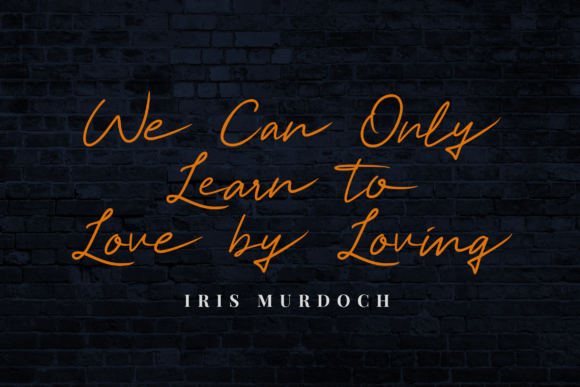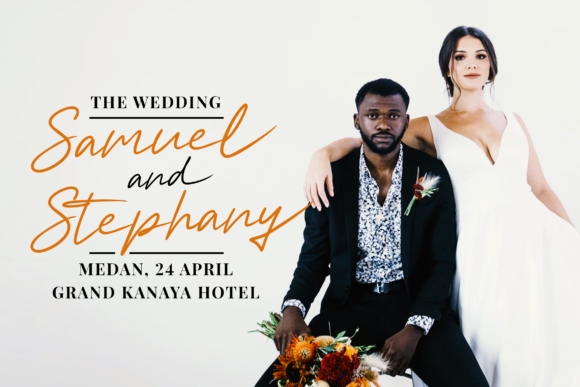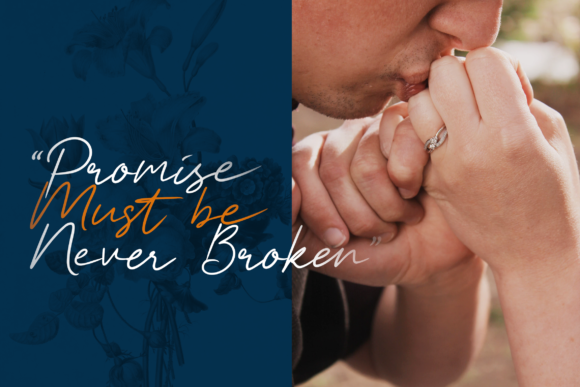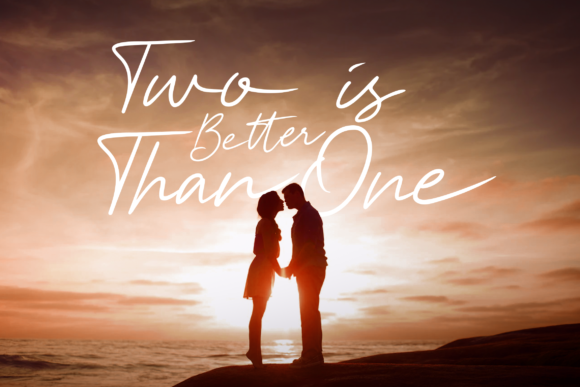
About Ethereal Soul Font
Ethereal Soul is a lovely wedding themed script font made with a natural look. It is a dainty and soft font that is great for a variety of projects like wedding invitations, branding projects, packaging and so much more. This font is PUA encoded which means you can access all of the glyphs and swashes with ease!